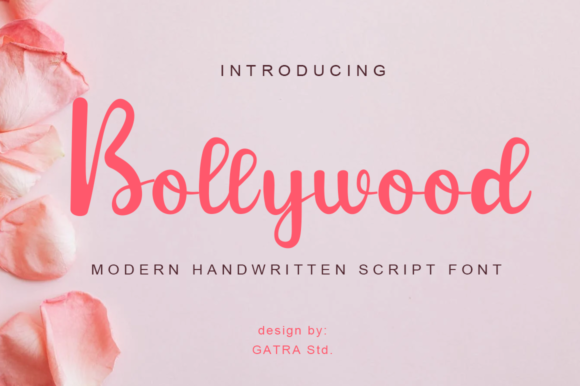
Unleash Your Creative Vision with Bollywood Font: The Epitome of Elegance and Style
Embark on a typographic adventure with Bollywood Font, a captivating script font family that will transform your digital creations into breathtaking works of art. Designed by the renowned Gatra Std, this font is a symphony of beauty, combining warmth, romance, and a touch of playfulness that will leave you spellbound.
Immerse yourself in the allure of Bollywood Font, a font that speaks to the heart. Its meticulously crafted characters dance across the screen, evoking a sense of nostalgia and timeless charm. Whether you're crafting a heartfelt letter, designing an eye-catching poster, or creating a stunning logo, Bollywood Font will elevate your project to new heights.
Experience the versatility of Bollywood Font, a font that effortlessly adapts to your creative whims. Its graceful curves and charming ligatures lend themselves beautifully to a wide range of applications. From modern resumes that demand attention to social media posts that pop, Bollywood Font is the perfect choice for making a lasting impression.
Indulge in the endless variations of Bollywood Font, a font that keeps on giving. Experiment with different letter combinations, explore the depths of its stylistic alternates, and discover a world of typographic possibilities. Unleash your inner artist and let Bollywood Font guide you on a journey of creative expression.